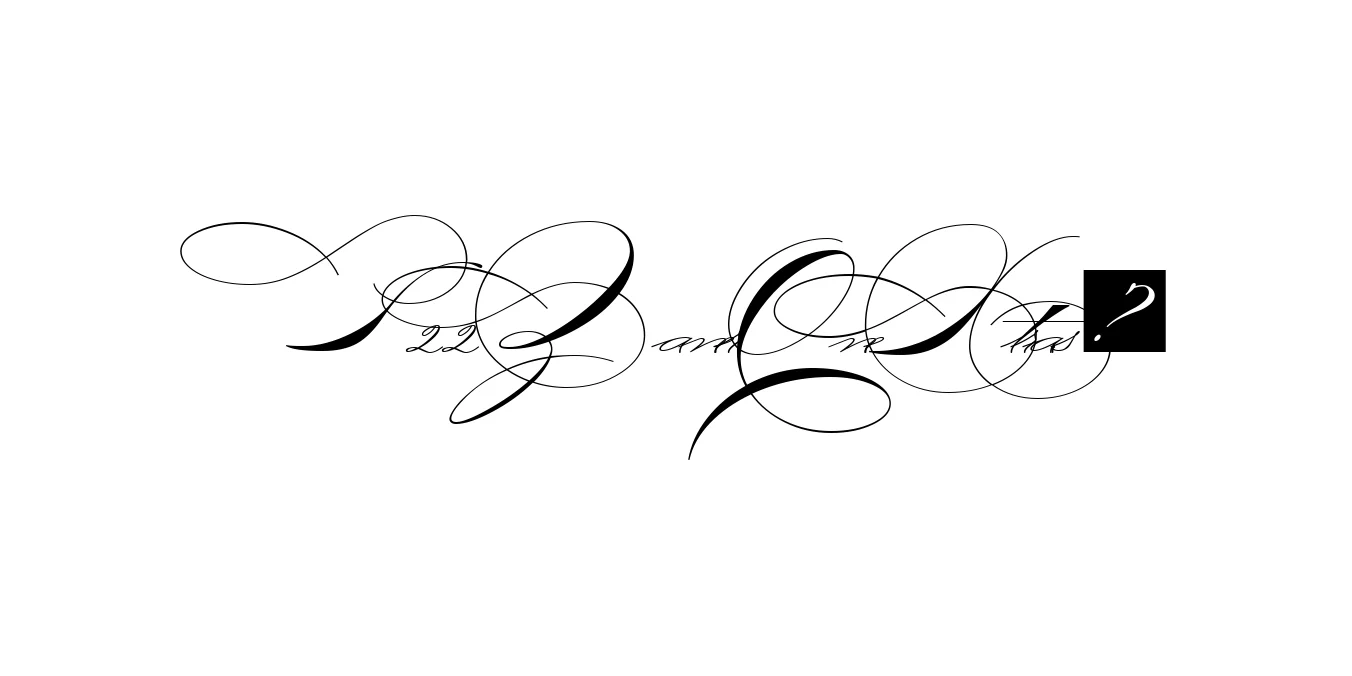
Designed by Paul Antonio, Richard Kegler, and Ted Staunton
| Category | Script / Calligraphic Ornaments |
| Designer | Paul Antonio, Richard Kegler, and Ted Staunton |
| Similar Fonts | Bickham Script, Sloop, Snell Roundhand, Edwardian Script |
P22 Zaner One Xtras is an essential component of the P22 Zaner font family, which is inspired by the legendary penmanship of Charles Paxton Zaner. Zaner was the founder of the Zanerian College of Penmanship and a master of the Spencerian script style during the Golden Age of American penmanship in the late 19th and early 20th centuries. This specific font weight is a collection of decorative flourishes, manicules, and ornamental characters that complement the formal script weights.
Developed by P22 Type Foundry, the font set is a result of extensive research into historical handwriting manuals. P22 Zaner One Xtras provides designers with authentic calligraphic ornaments that were once hand-drawn by master penmen, allowing for the digital recreation of sophisticated, high-end formal documents and Victorian-era aesthetics with precision and artistic flair.
Adding intricate flourishes and elegant borders to formal invitations.
Creating sophisticated logos for high-end fashion, jewelry, or heritage brands.
Enhancing diplomas with traditional, hand-inked decorative elements.
Using historical manicules (pointing hands) and flourishes as unique page breaks.